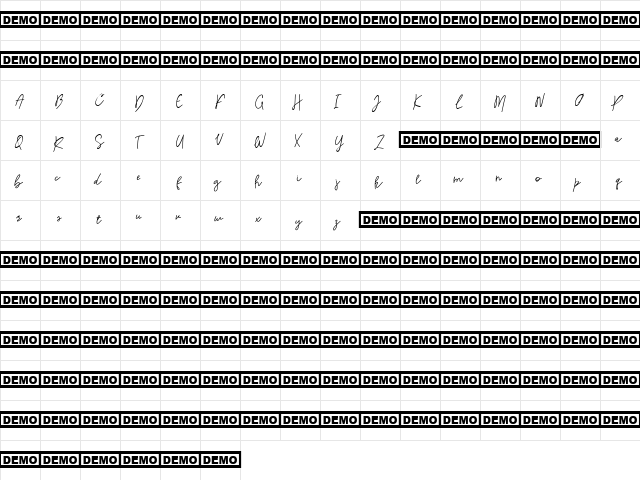
Rishangle Regular Font Preview
Rishangle Regular
Rishangle Regular Font Details
Design Context for Rishangle Typeface
Rishangle is a composed and adaptable typeface that performs quietly and consistently across a wide range of design contexts.